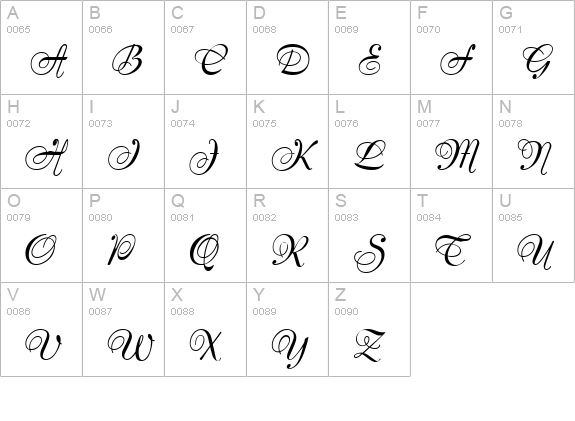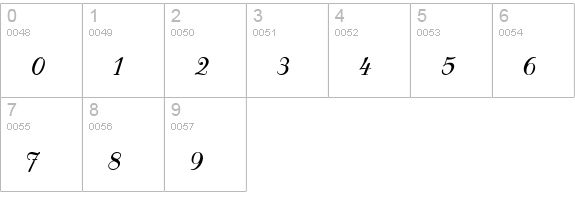
PrimroseJF is a stunning and elegant font that captures the essence of sophistication and modernity. With its delicate curves and graceful lines, this font exudes a sense of charm and beauty that is sure to enhance any design project. Perfect for adding a touch of class to invitations, logos, branding, and more, PrimroseJF is a versatile typeface that will elevate your creations to new heights. The best part? PrimroseJF is completely free to download at FontsMarket.com. That's right, you can access this exquisite font at no cost, making it the perfect choice for designers on a budget or anyone looking to add a touch of luxury to their work without breaking the bank. So why wait? Download PrimroseJF today and let its timeless elegance inspire your next masterpiece.